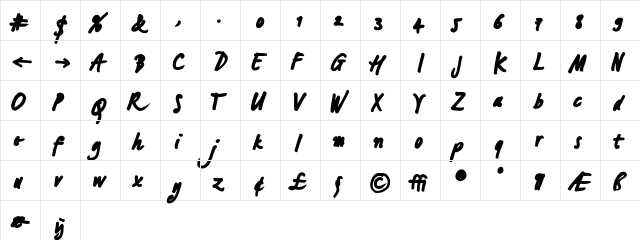
LucasHandFeetBlack Medium
Design Context for LucasHandFeetBlack Typeface
LucasHandFeetBlack brings a calligraphic fluidity to the page — its connecting strokes and expressive curves give it an unmistakably human quality.
Font Pairing: Combine LucasHandFeetBlack with a simple geometric sans for maximum contrast — the tension between flowing curves and clean structure is a classic typographic pairing.
Pro Tip: Use LucasHandFeetBlack for short runs of text — names, titles, or taglines. Extended body copy in script faces tires the eye quickly.